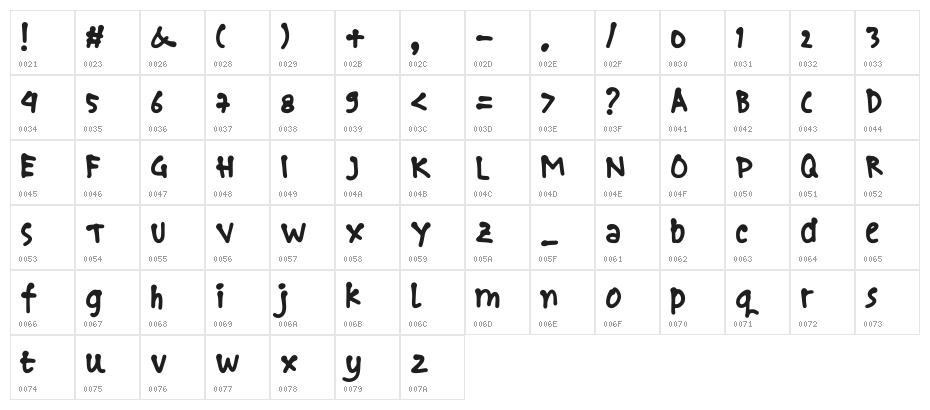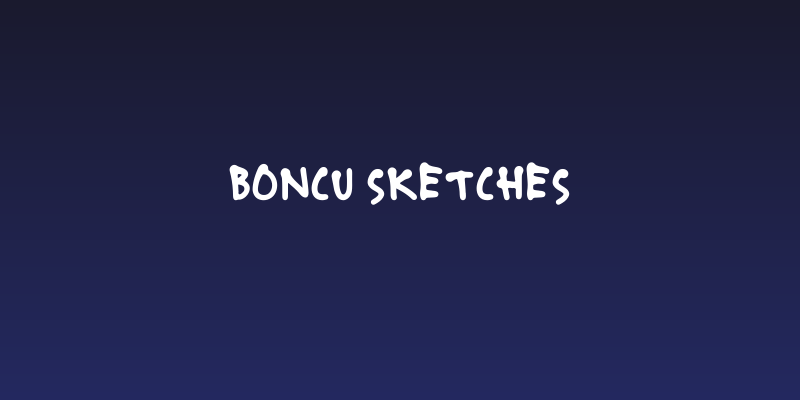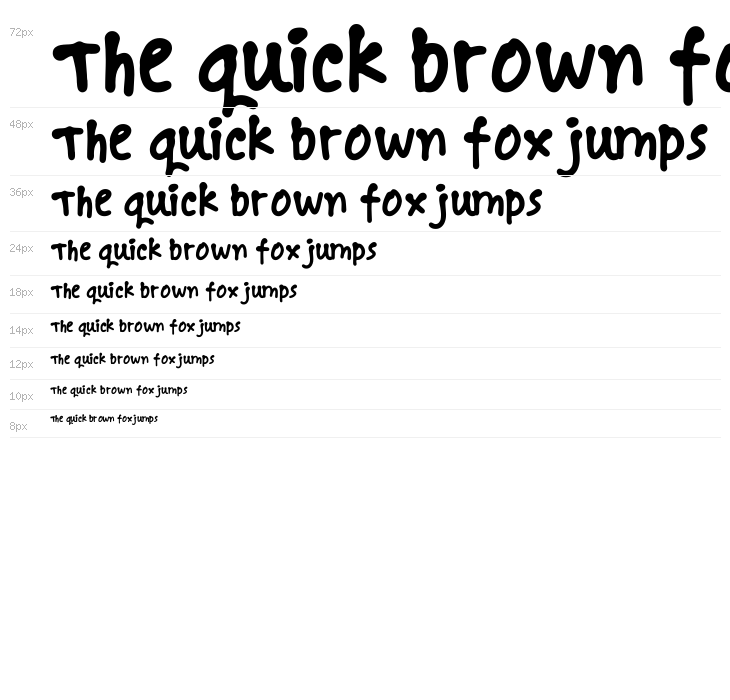
boncu sketches Font
boncu sketches Description
This playful and whimsical font features a hand-drawn aesthetic with uneven strokes and a casual feel. The letters are bold and rounded, giving them a friendly and approachable appearance. The irregularity in the shapes adds a unique charm, making it suitable for creative and informal projects. The font includes both uppercase and lowercase letters, numbers, and a variety of special characters. Its organic style is reminiscent of sketches or doodles, adding a personal touch to any design.
| Use Case | Logos, Headlines, Informal Text |
| Proposed Projects | Ideal for children's books, playful branding, greeting cards, and creative posters. |